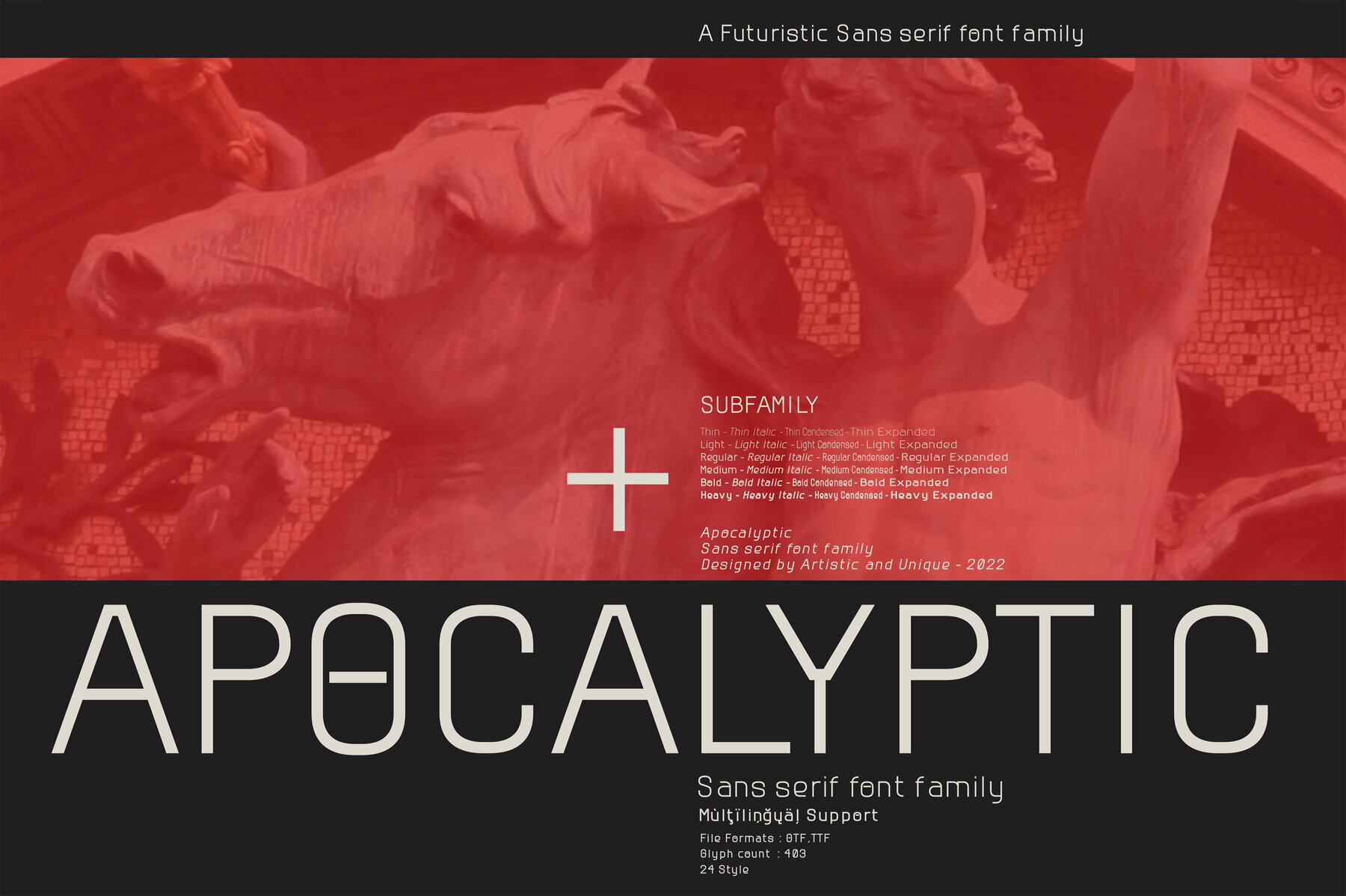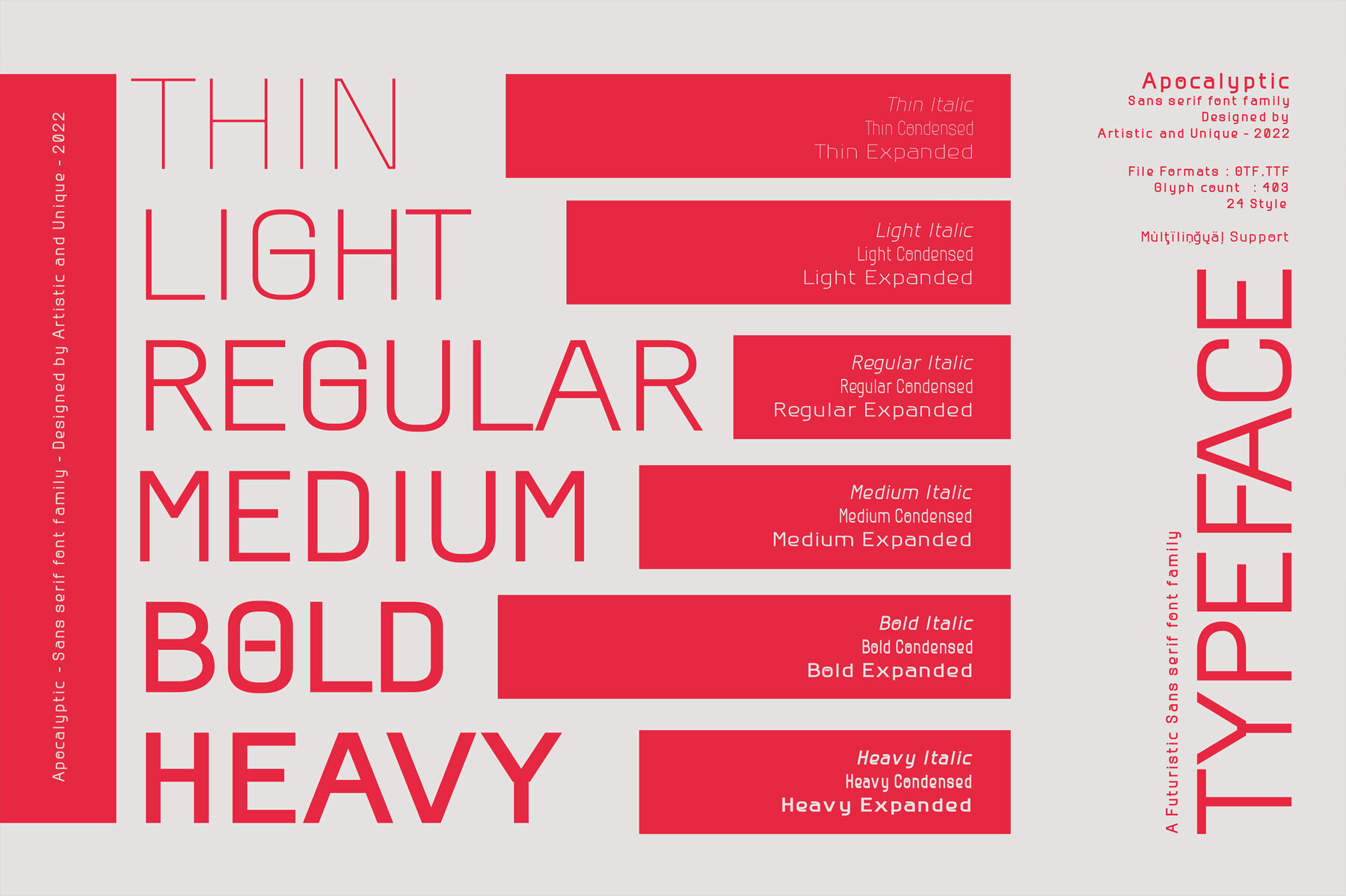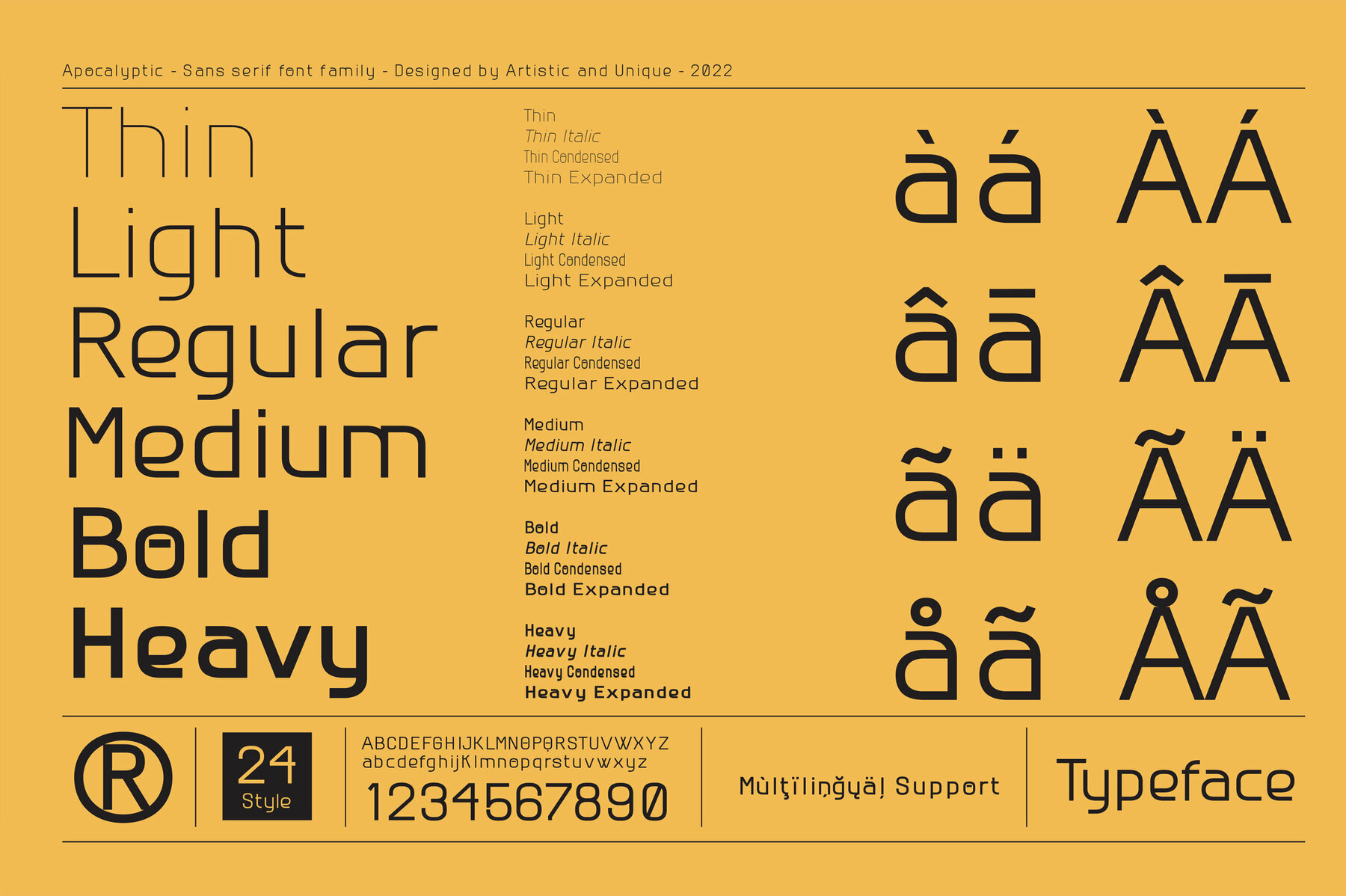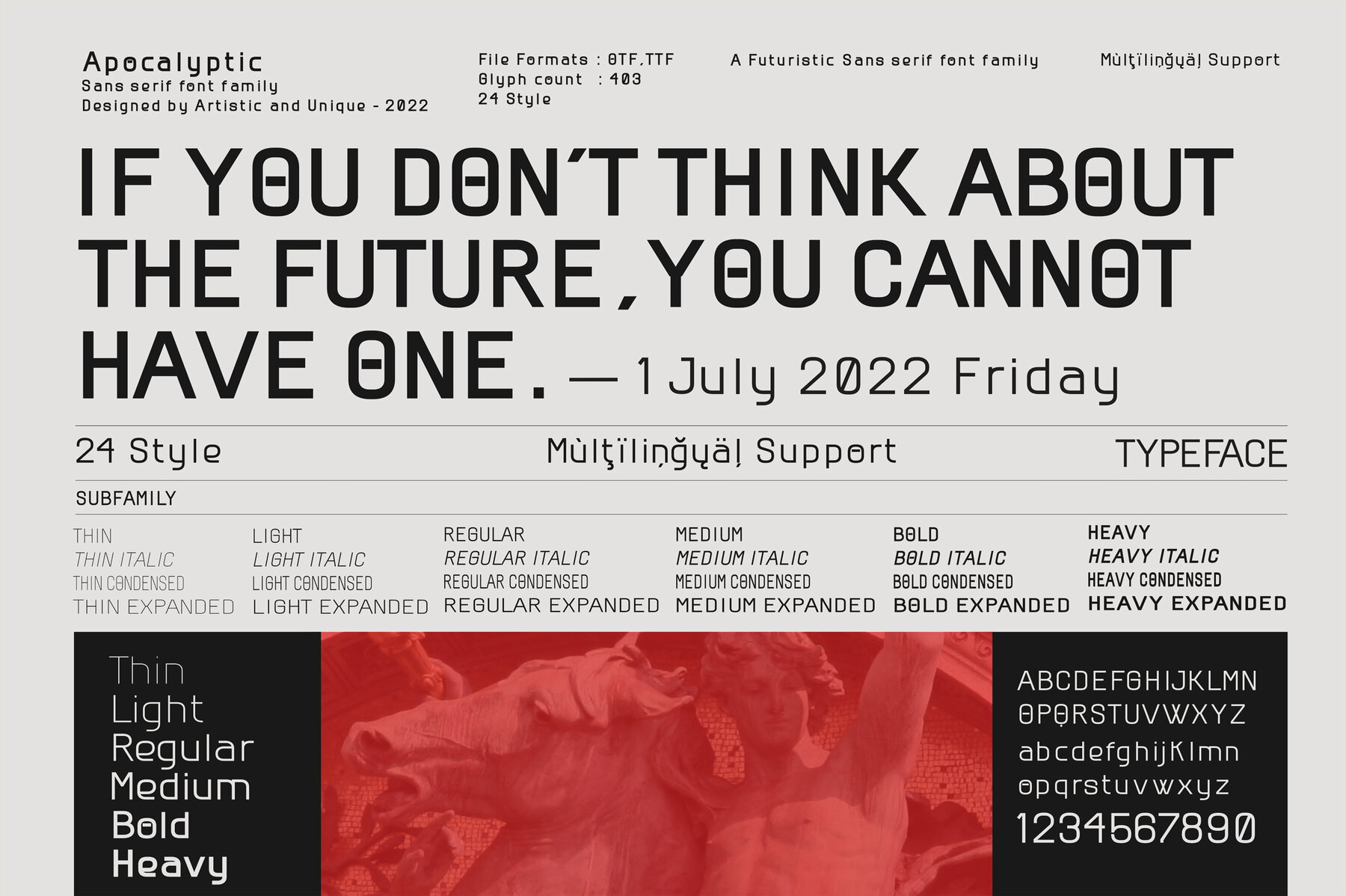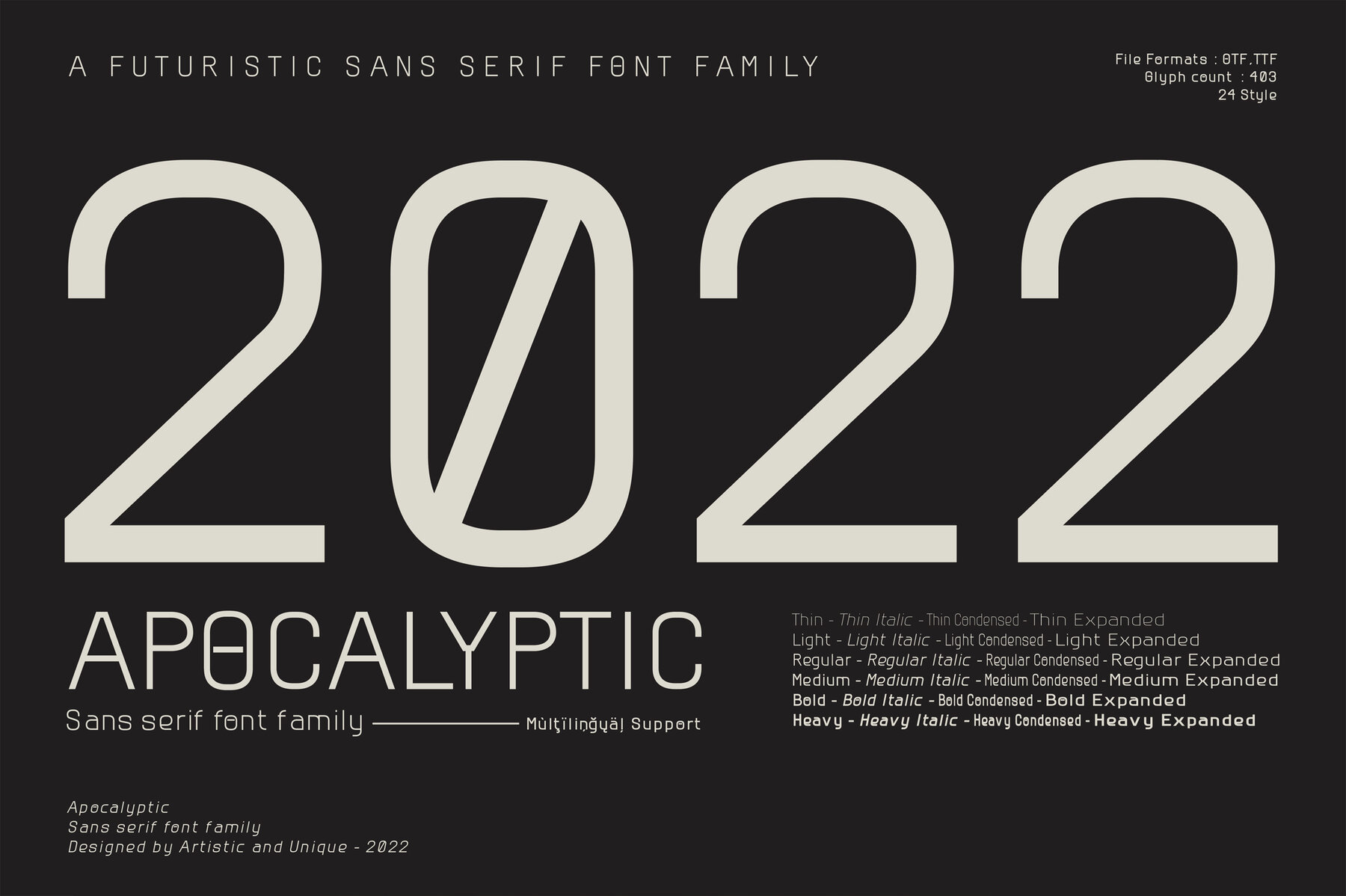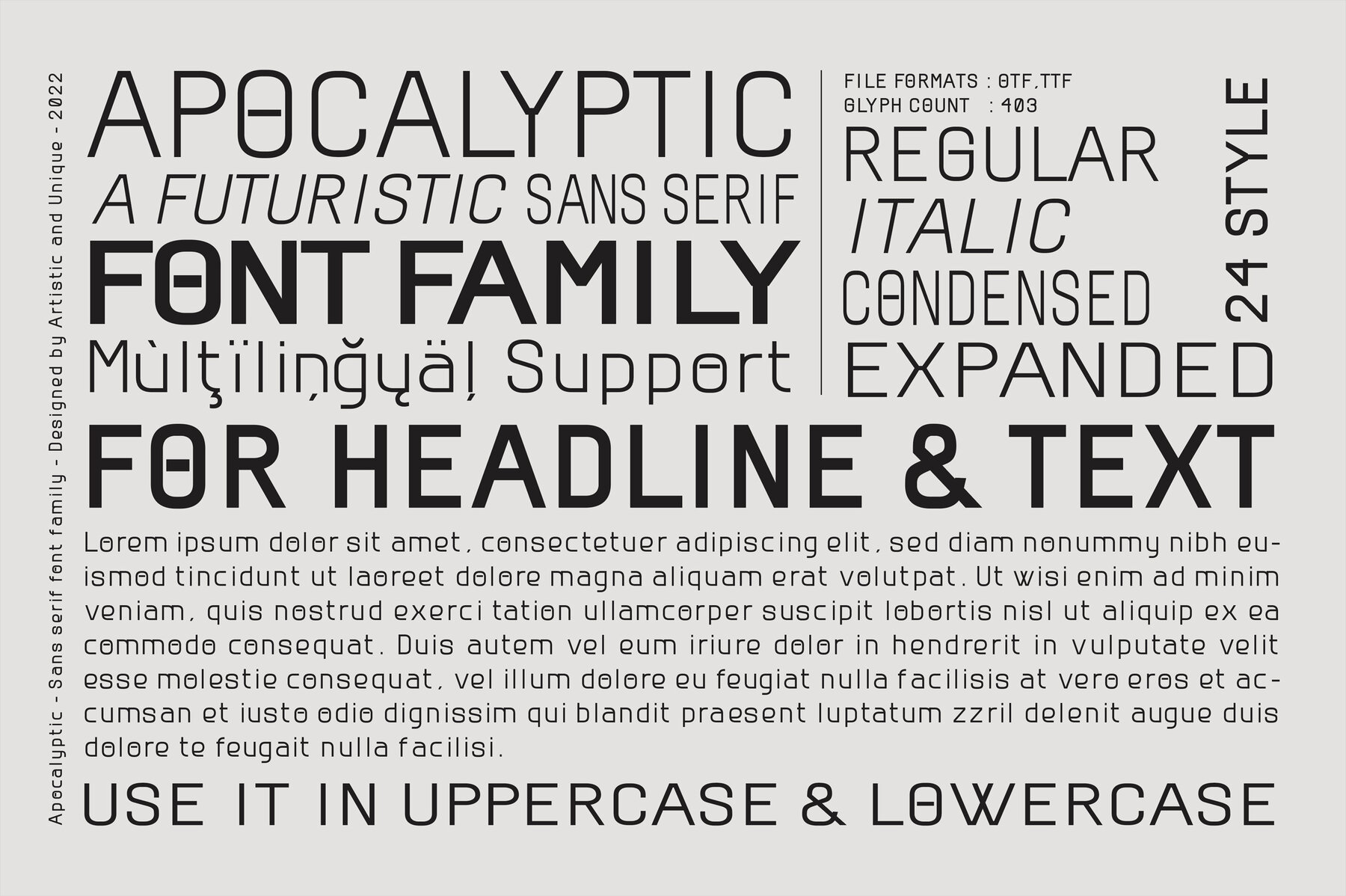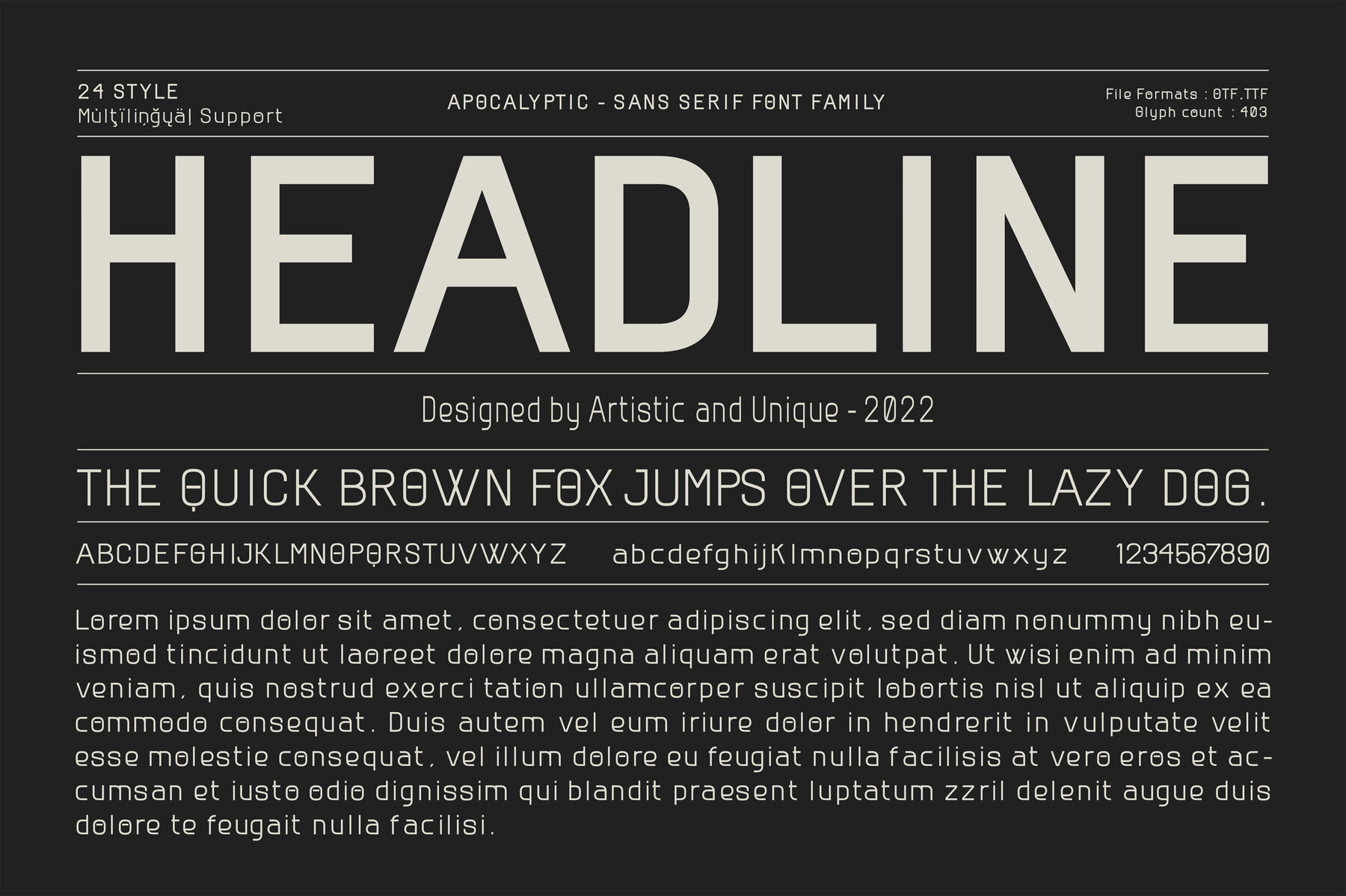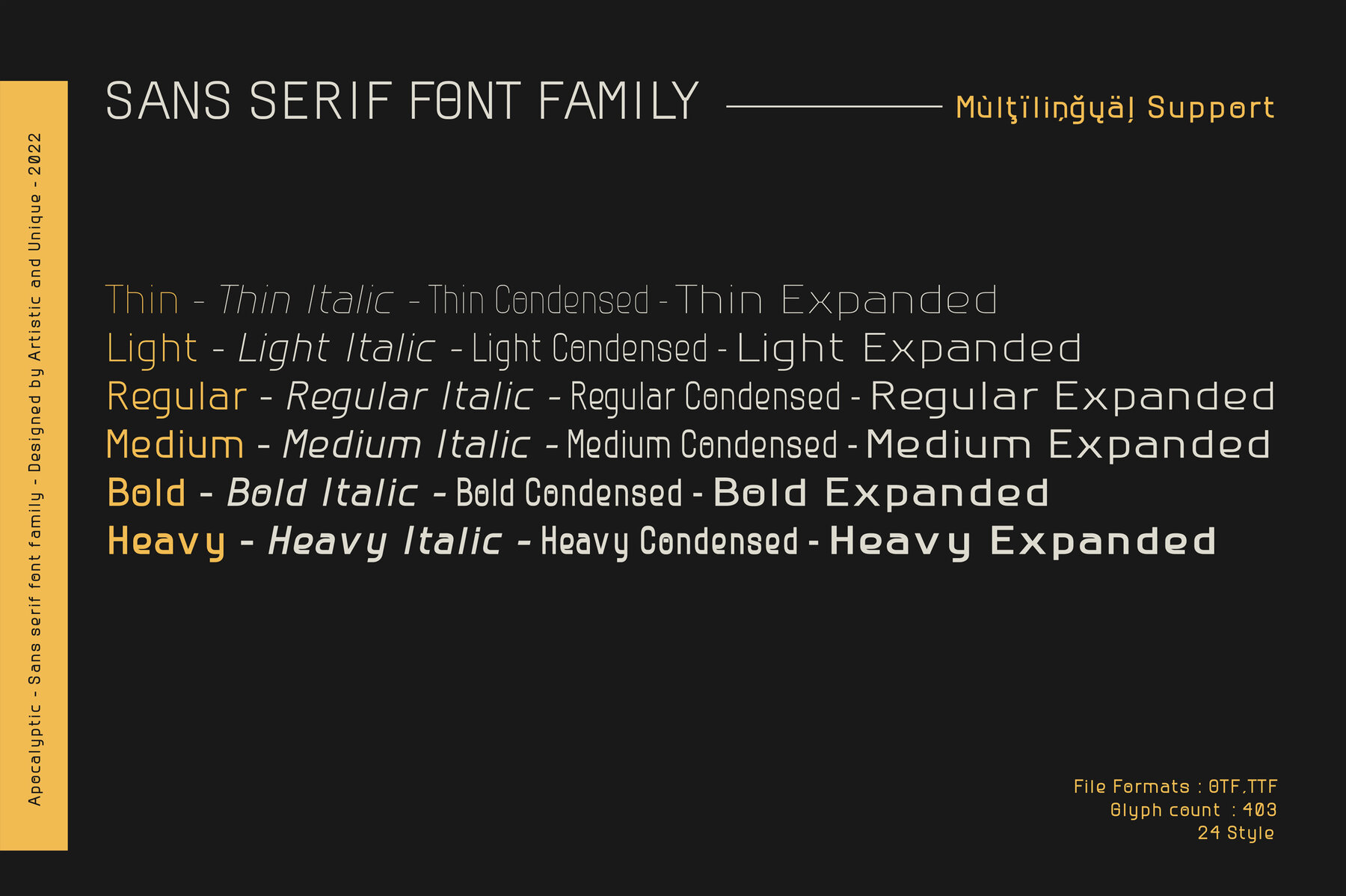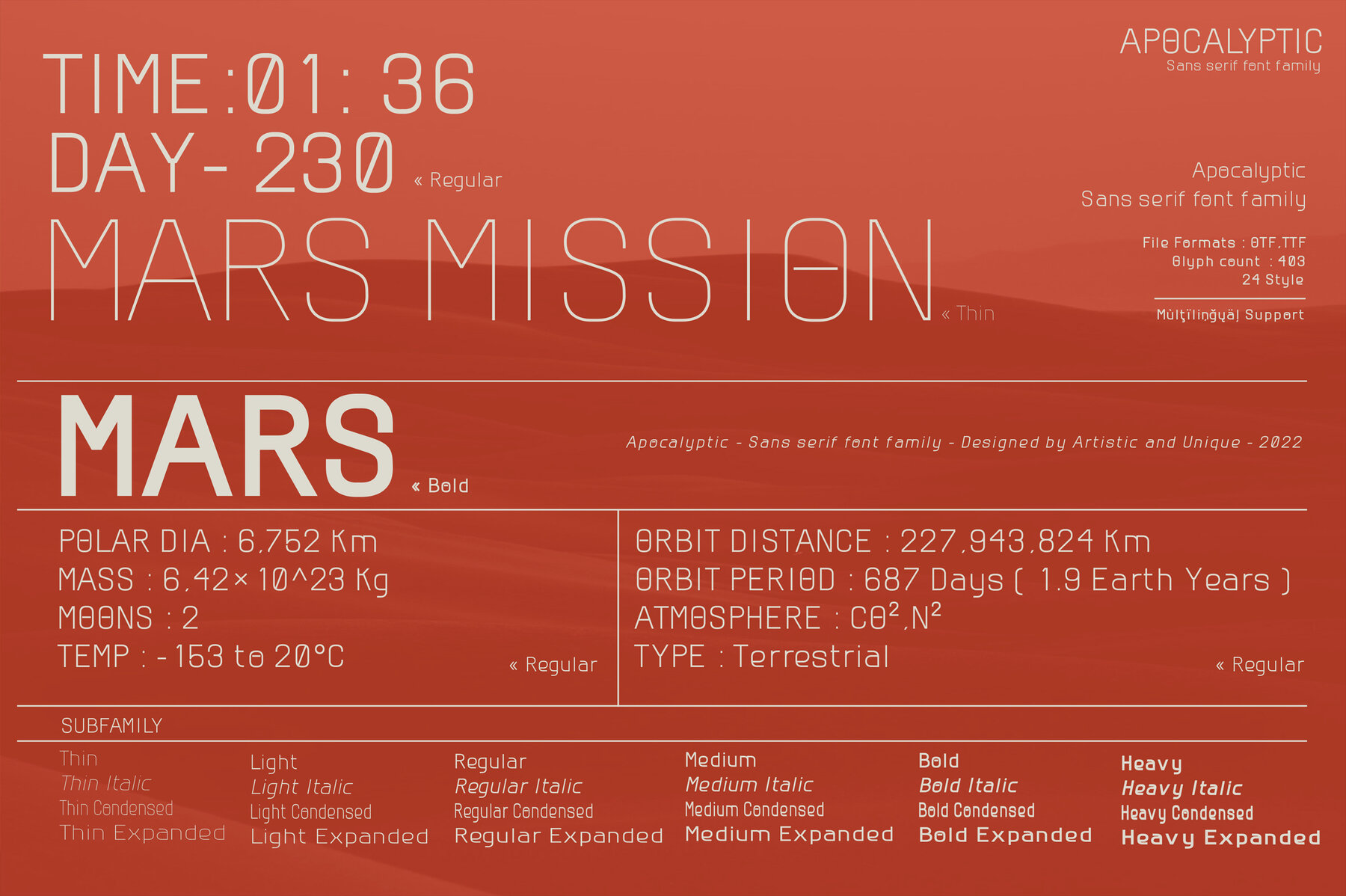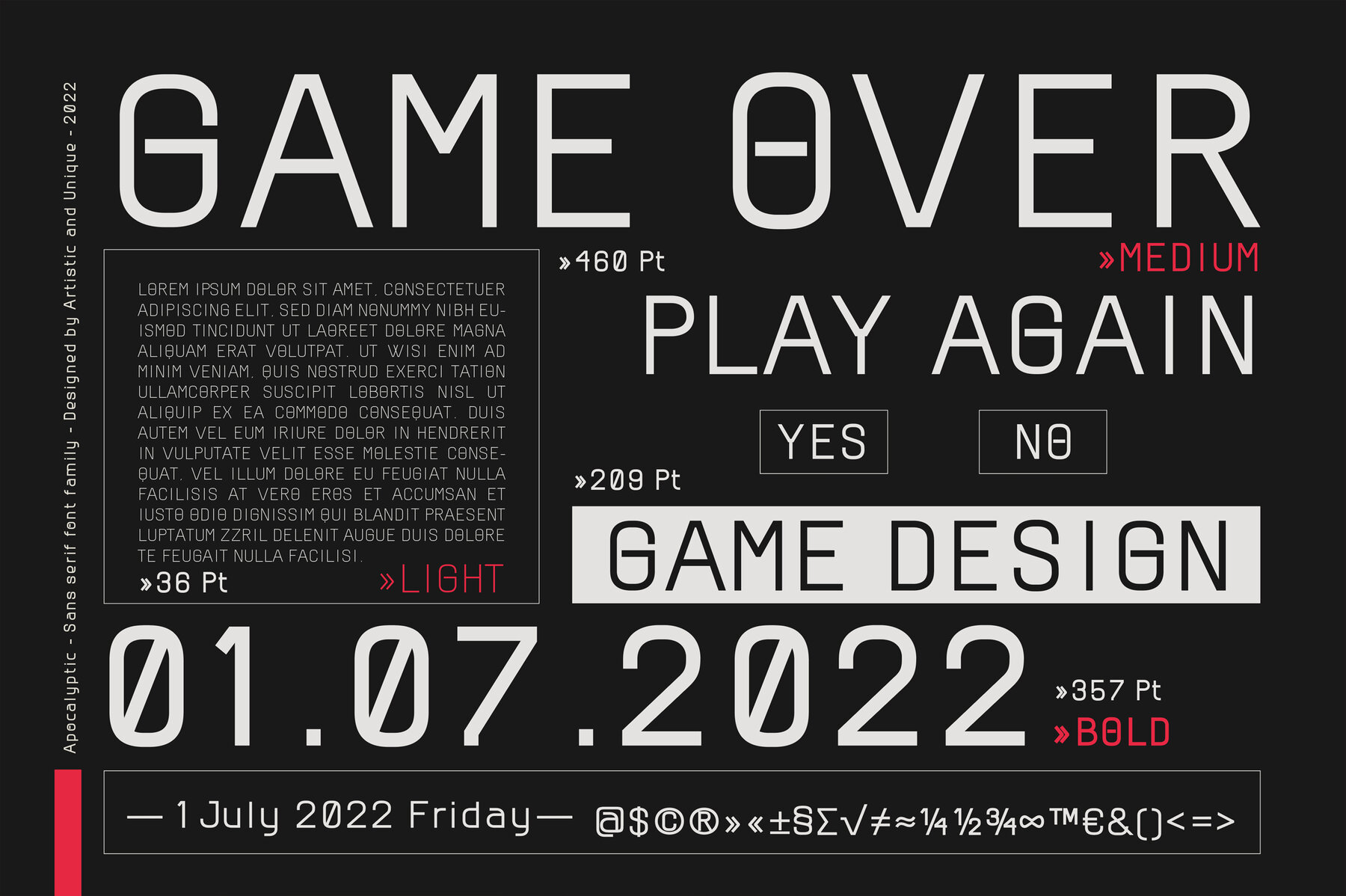
Apocalyptic Font
The Apocalyptic font family presents a blend of futuristic and modern aesthetics perfectly calibrated for technology, science, space, and related fields. Offering an expansive 24 styles, it encapsulates emotional depth, making it an apt fit for varied creative endeavors. Spanning from Thin to Heavy, Apocalyptic ensures a comprehensive expression across languages, seamlessly transitioning from print to digital media. Its alternative versions provide abundant solutions, enhancing the impact of your designs. Employ this font family across diverse settings, whether crafting normal text or emphasizing with bolder characters. Ideal for powerful headlines, its adaptability shines in various contexts. Features:Apocalyptic: Futuristic Sans Serif for Modern Interfaces